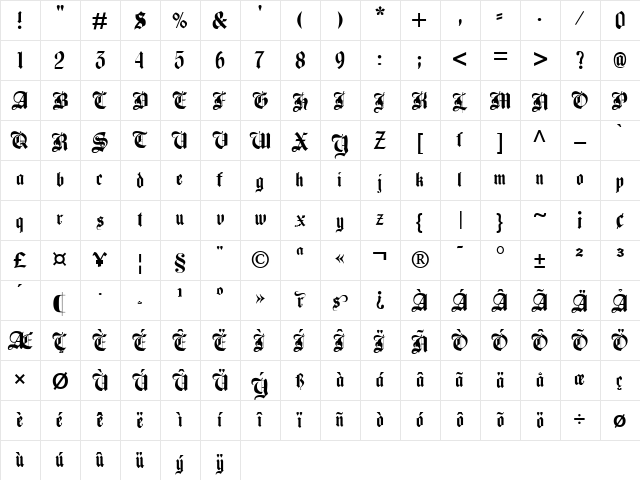
Beckett-Kanzlei Regular
Design Context for Beckett-Kanzlei Typeface
Beckett-Kanzlei is a composed and adaptable typeface that performs quietly and consistently across a wide range of design contexts.